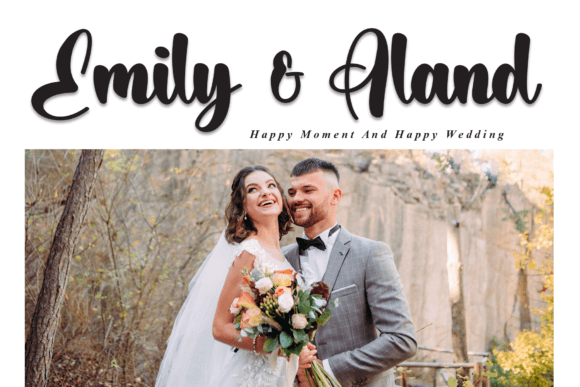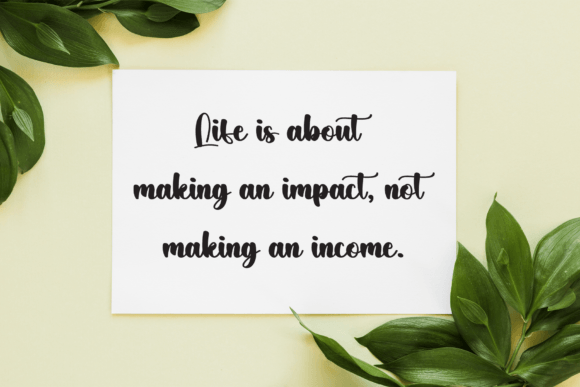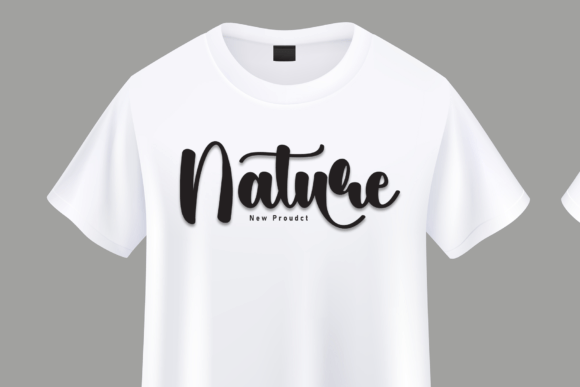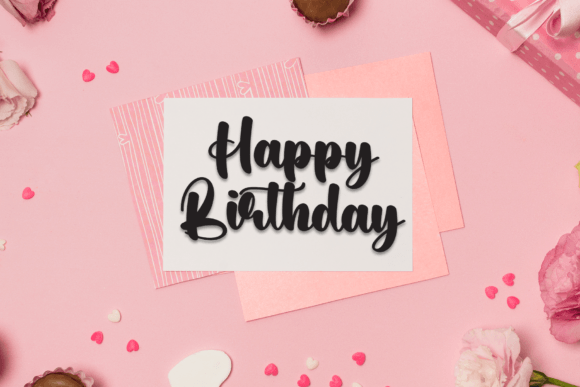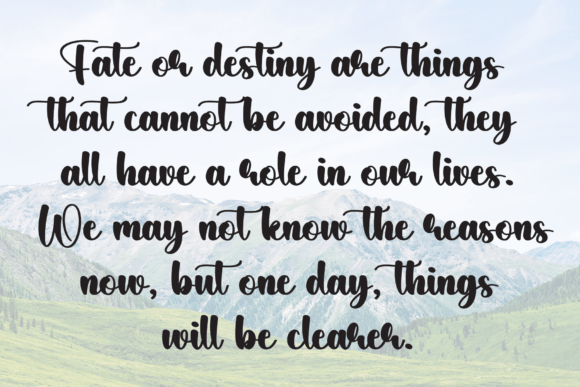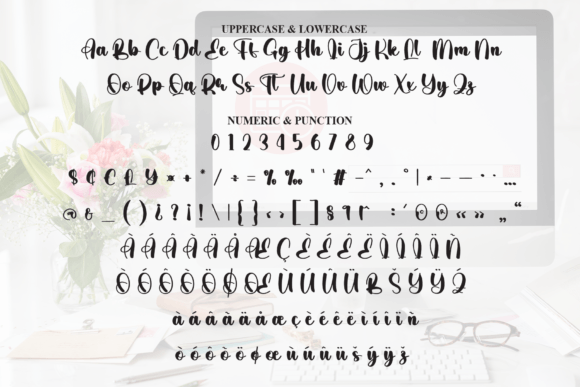
The Digital Planner Font: A Game-Changer for Designers and Crafters
I’ll never forget the moment I stumbled upon the Digital Planner font. I was working on a project for a client who needed a custom planner designed, and I was struggling to find the perfect font. I wanted something that looked like neat, personal writing, but still had a professional touch. That’s when I discovered Digital Planner – a bold, handwritten font that has since become a staple in my design toolkit.
- ✨ The warm and friendly feel it gives to my text – perfect for planners, journals, and notes.
- ✅ The font’s versatility – it works well in both digital and print formats.
While I adore the Digital Planner font, there are a few quirks to be aware of:
- ⚠️ Some users have reported issues with kerning, particularly with certain letter combinations.
- 🤔 The font can appear a bit too bold when used in all caps, so it’s best to use it in title case or mixed case.
The Story Behind Digital Planner
Digital Planner was designed with the intention of creating a font that looked like neat, personal writing. The designer wanted to create a font that would make digital planners and journals feel more approachable and friendly. With its bold, handwritten style, Digital Planner has become a popular choice among designers and crafters.
Q: What is the Digital Planner font?
A: The Digital Planner font is a bold, handwritten font designed to look like neat, personal writing.